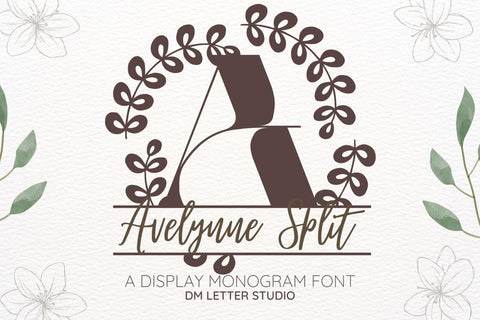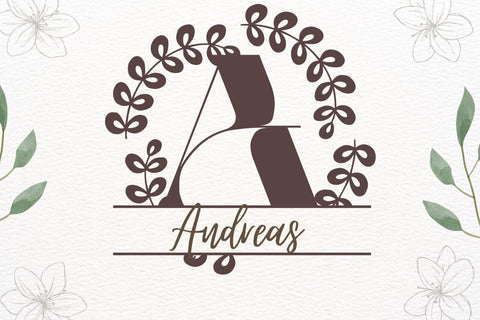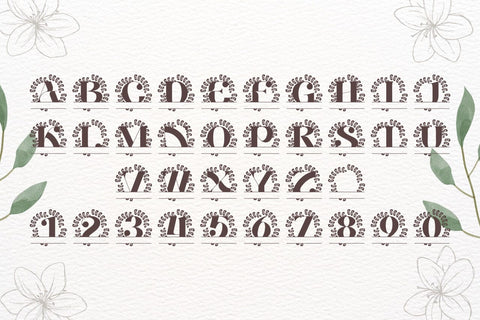
Avelynne Split Monogram Font
Meet Avelynne Split Monogram Font
Avelynne Split Monogram Font turns initials into custom nameplates in seconds. The letterforms feel elegant and clear. The center split leaves room for names, dates, or short words. Because spacing stays balanced, results look polished with little effort. Use it for wedding gifts, family signs, door hangers, tumblers, and ornaments. Moreover, this Split Monogram Font pairs well with simple sans or light scripts, so layouts stay refined and readable.
Where this Split Monogram Font shines
Set a single initial and place the family name inside the split. Then try couple names for keepsakes, or words like “Home” and “Welcome.” Since proportions favor clarity, you can size designs for wall art, tags, or keychains. As a result, Avelynne Split Monogram Font works perfectly for Cricut, Glowforge, laser, and vinyl.
Design tips for Avelynne Split Monogram
Keep the main initial large. Place the split line at center or slightly low for balance. Meanwhile, pick a clean secondary font for the name inside the split. Because the forms feel airy, metallic accents and wood textures add instant value. Try champagne with charcoal, or navy with gold. However, keep names short to protect small-size readability.
Uppercase alphabet suited for split monograms
Matching lowercase, numbers, punctuation
Curves tuned for engraving, foil, laser cutting, and vinyl
Why makers choose this Split Monogram Font
You want fast personalization that looks high-end. Avelynne Split Monogram Font delivers. It helps you craft custom gifts, signs, and decor in minutes. Also, it keeps your shop style consistent across many product types. Therefore, one font can anchor a full line of name-ready pieces.